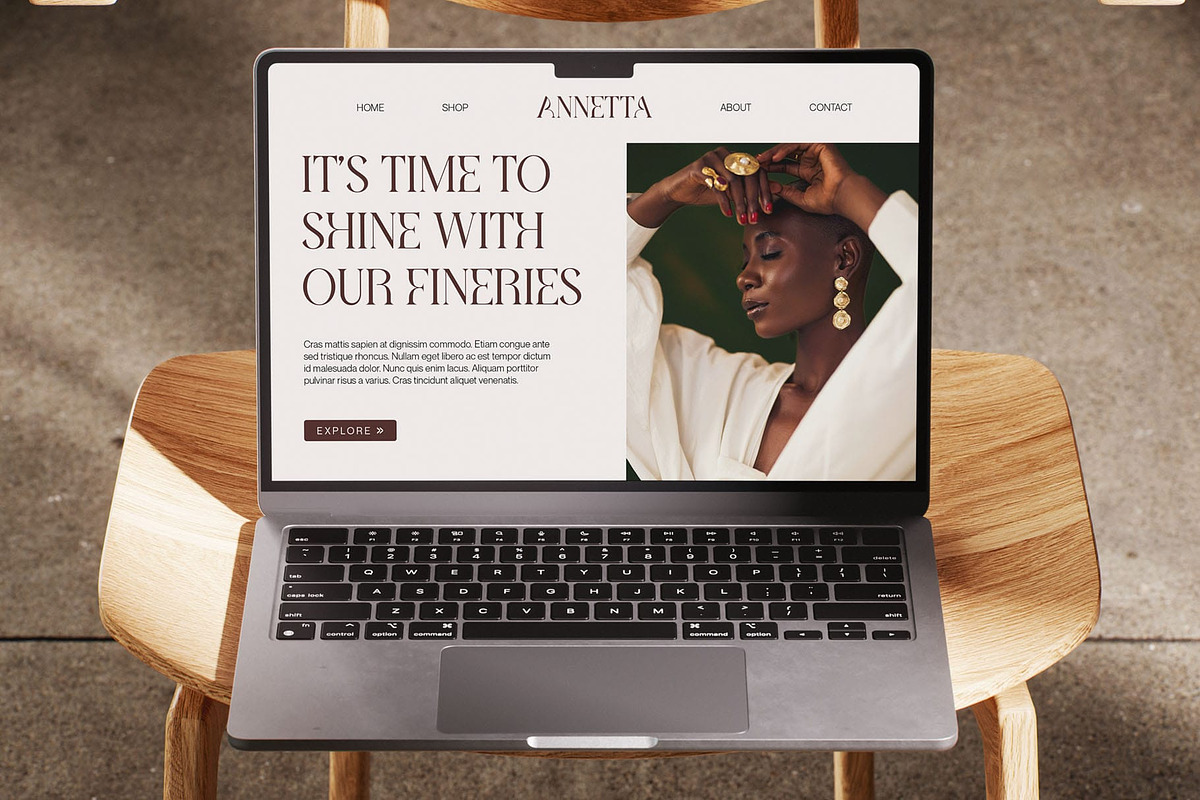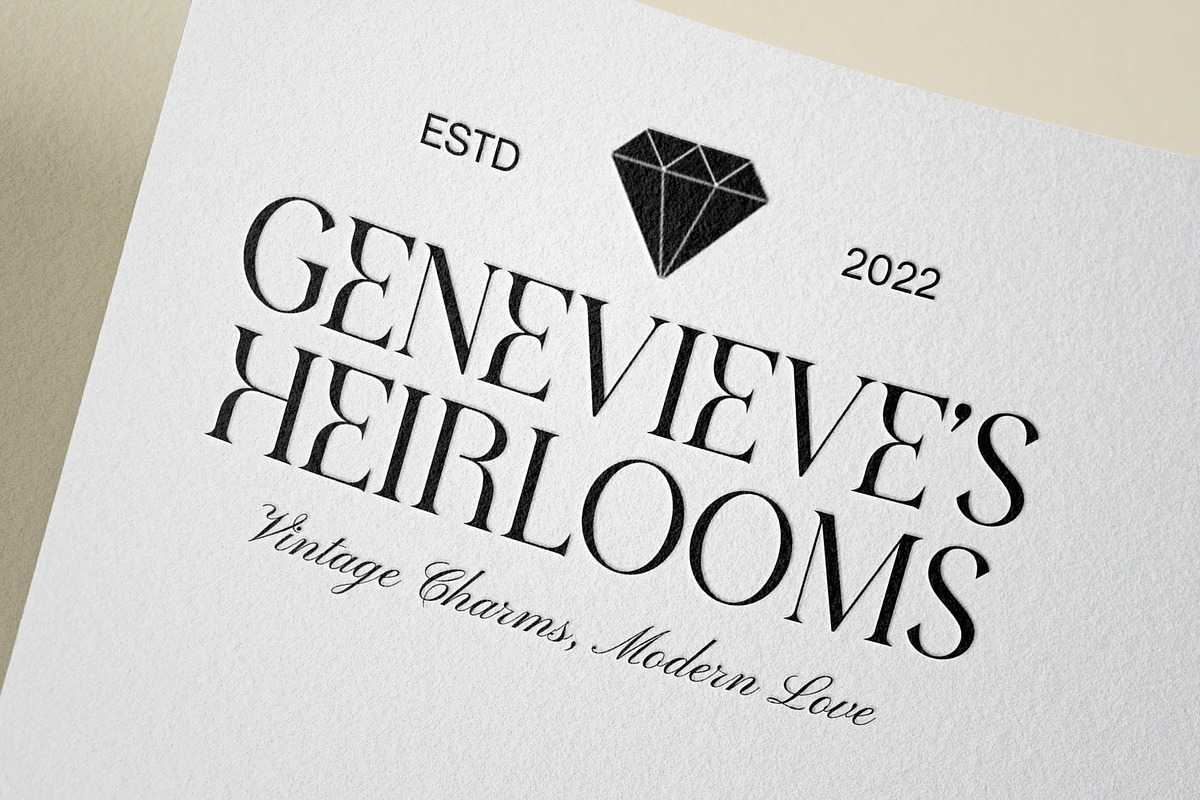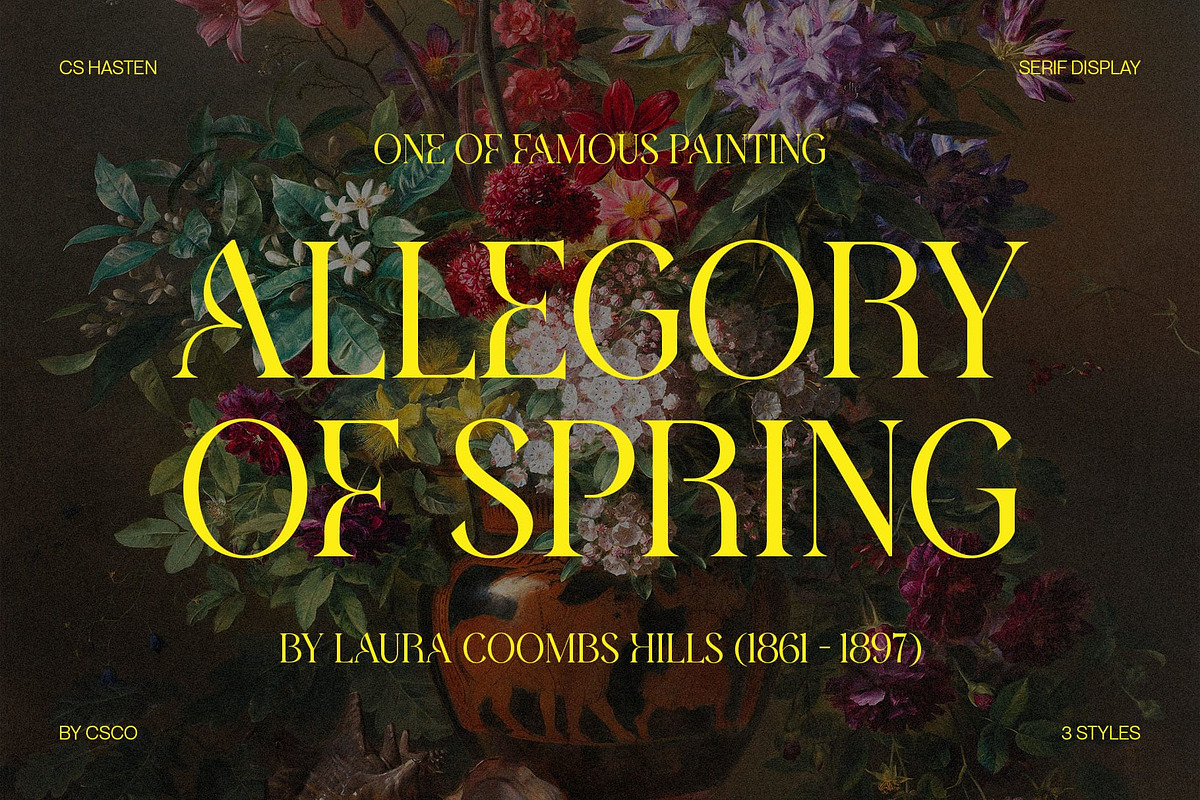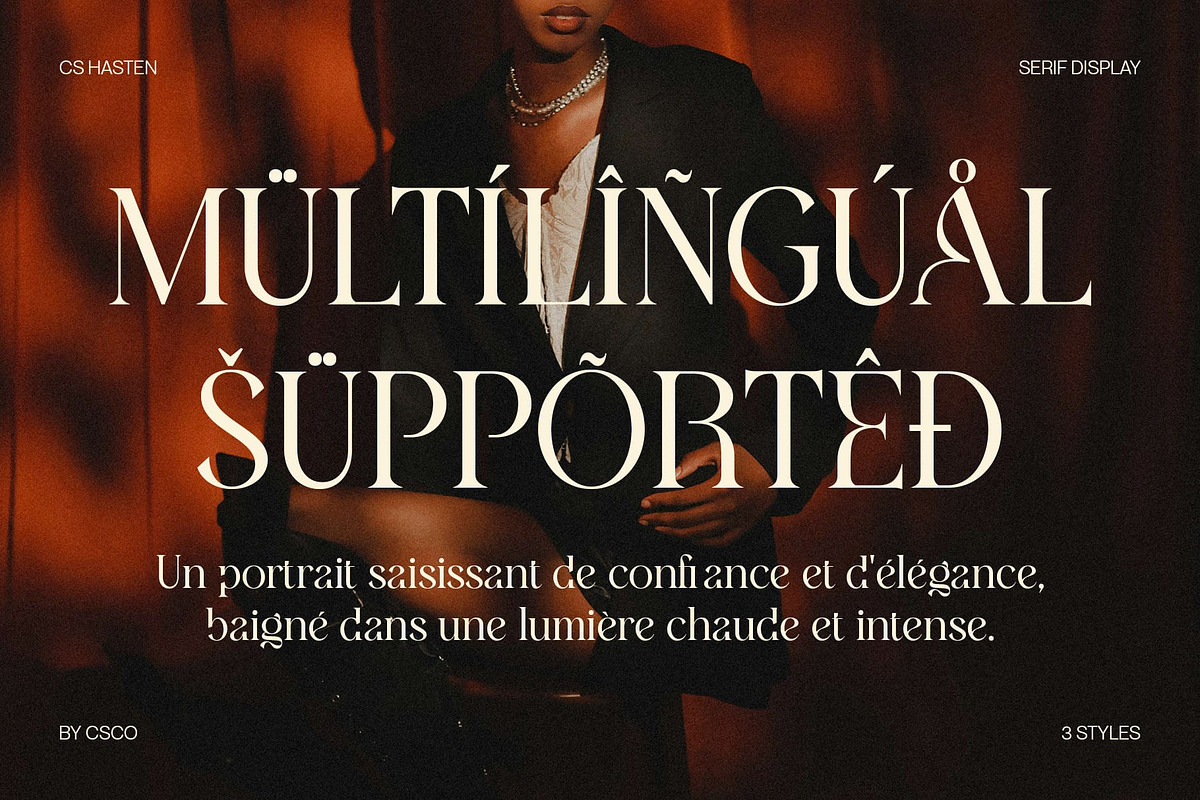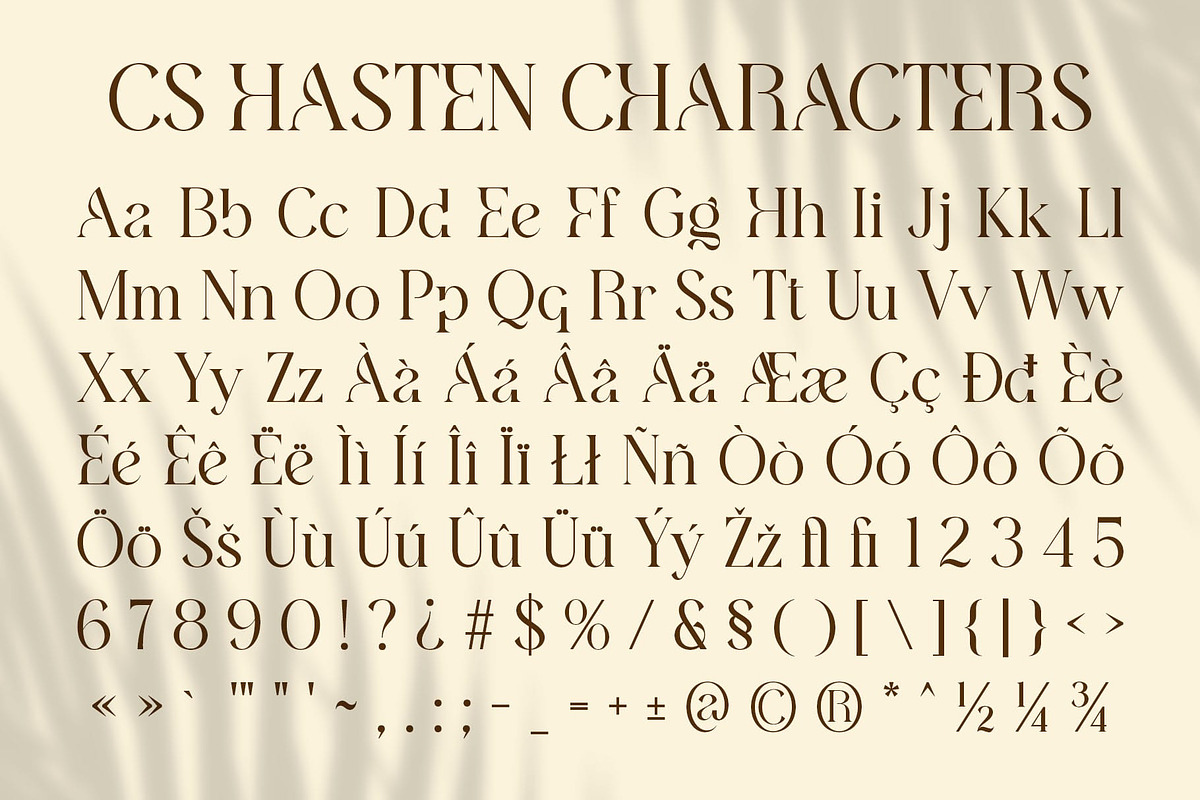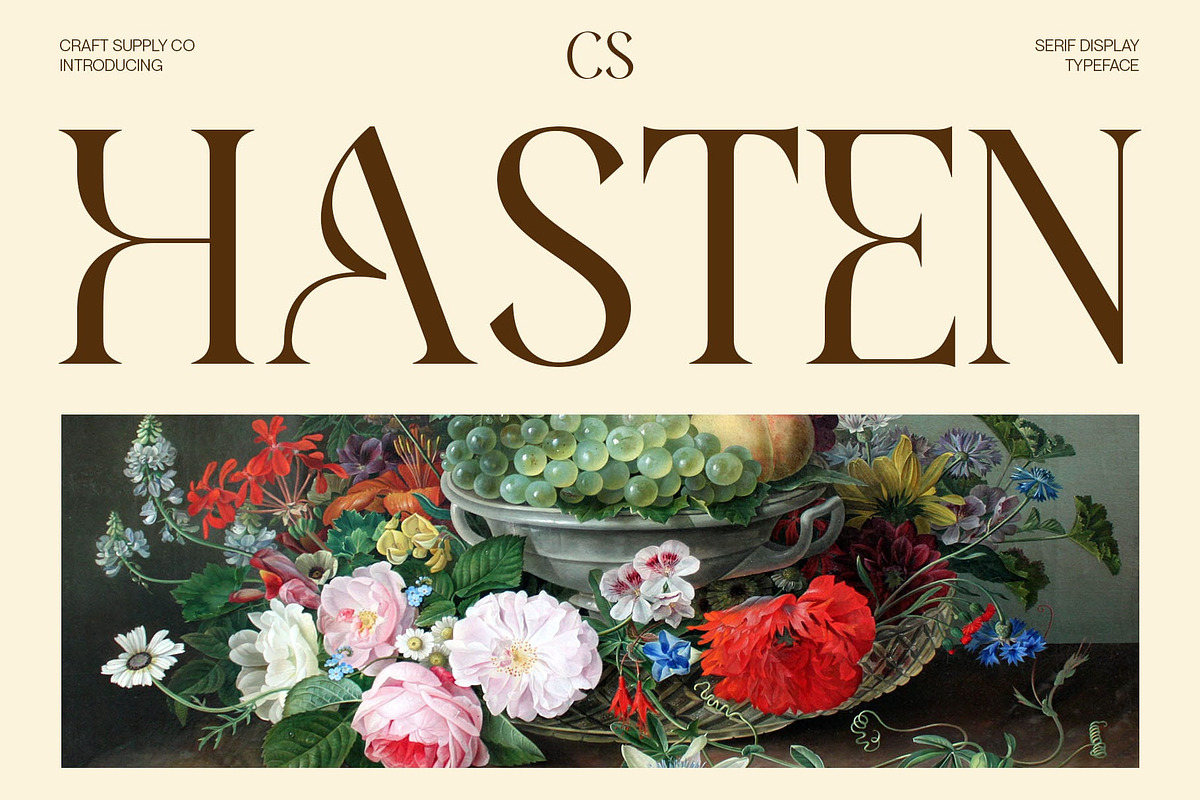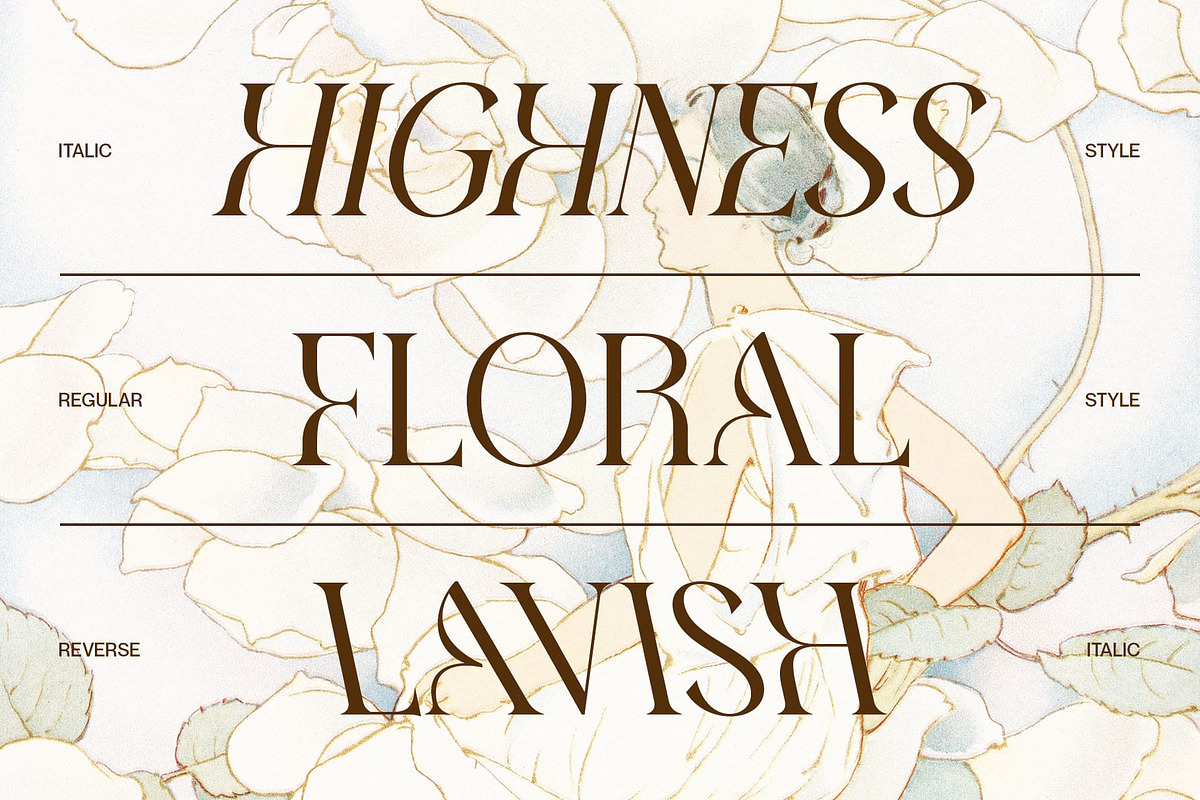
CS Hasten – Elegant Font
CS Hasten – A Refined and Elegant Serif Font
Sleek and Minimalist Design CS Hasten is a modern serif font that embodies elegance and aesthetics with its fine lines, balanced proportions, and delicate serif details. Its clean structure and timeless appeal make it an ideal choice for designs that require a sophisticated and polished look.
Luxury and Professional Aesthetic Designed with graceful letterforms and a refined presence, CS Hasten adds a touch of luxury and exclusivity to any project. The subtle contrast and fluid curves make it perfect for high-end branding, fashion editorials, and upscale product packaging, where elegance is key.
Versatile for Premium Design Needs Whether used for magazine covers, wedding invitations, beauty product branding, or corporate identity, CS Hasten enhances the visual appeal with its understated yet commanding presence. Its harmonious letterforms ensure readability while maintaining an air of prestige and charm.
Perfect for Timeless and Aesthetic Creations CS Hasten is tailored for designers seeking sophistication without excess ornamentation. With its sleek curves and modern touch, it effortlessly complements artistic layouts, contemporary websites, and refined typography projects, offering a blend of classic beauty and modern simplicity.